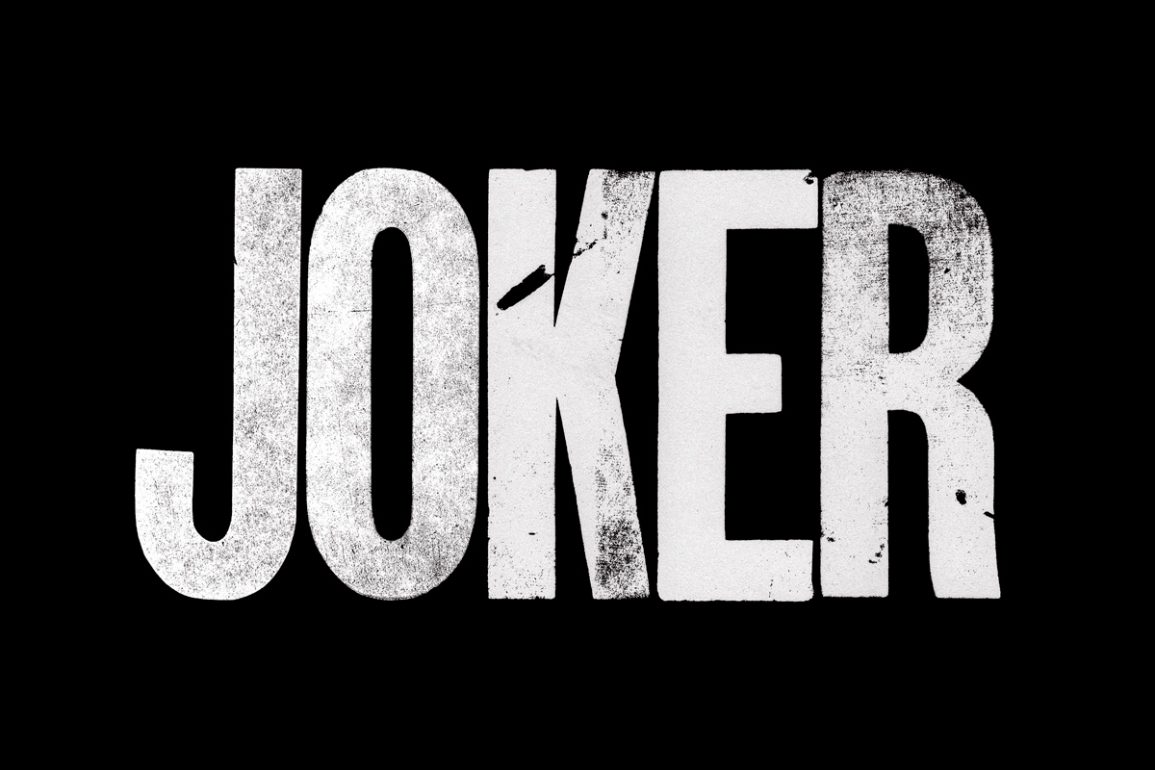
Gothic Joker Display Font
Gothic Joker Display Font is like a vintage theme that can be used in any of your project. All characters have an flawed shape that gives a natural look in design. It effortlessly cooperating together and perfect for creating the traditional style logos, labels, lettering for t-shirts, package design and much more.
It’s a bold, retro inspired font good for headlines, logos, brandings, label, posters etc. Carefully handcrafted six styles offers you many possibilities to use.
Regular for modern designs, Rough and Print for vintage projects. It’s free for personal use.